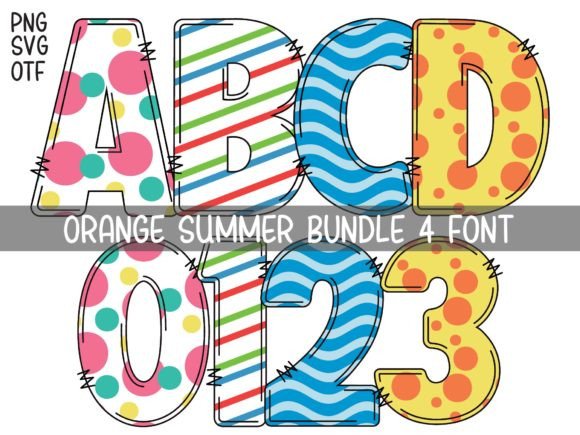
Welcome to the realm of vibrant expressions, where colors dance harmoniously across your creative canvas. Introducing Orange Summer Font, a jubilant and inviting color font that radiates warmth and happiness. Prepare to infuse your projects with an irresistible playful charm that captivates and delights.
With Orange Summer Font as your artistic companion, you'll embark on a journey of boundless imagination. Dive into a world of vacation-inspired designs, where summer days and holiday cheer come alive. Unleash your creativity and craft eye-catching posters that evoke the thrill of adventure, the tranquility of a beach, or the joyous spirit of festive celebrations.
Fashionistas, rejoice! Orange Summer Font is the perfect partner for your trendy t-shirt designs. Picture your creations adorned with this colorful font, transforming ordinary garments into vibrant expressions of your unique style. From bold statements to whimsical patterns, let your imagination soar as you create fashion pieces that radiate personality and ignite conversations wherever you go.
But the magic doesn't stop there. Orange Summer Font effortlessly elevates any creative project, adding a touch of playfulness and approachability that draws people in. Websites, social media graphics, invitations, and even product labels—let Orange Summer Font dance across your designs, captivating your audience and leaving a lasting impression.
The possibilities are endless with Orange Summer Font. Its versatility extends beyond the boundaries of imagination, allowing you to craft remarkable designs that speak volumes about your brand or personal style. Whether you're seeking to create captivating logos that exude a joyful vibe, or stunning marketing materials that demand attention, Orange Summer Font is your trusty companion, ready to bring your visions to life.
If you crave a font that sparks joy, spreads happiness, and ignites your creativity, then Orange Summer Font is your perfect match. Its vibrant colors and playful energy will transform your projects into captivating masterpieces that resonate with your audience. Embrace the magic of Orange Summer Font and watch your creative dreams flourish. Download it today and let the harmonious colors of Orange Summer Font paint your world with smiles and wonder.